demon font: Unleashing the Dark Side of Typography
Typography plays a crucial role in the world of design, enabling us to convey messages, evoke emotions, and create a unique visual identity. Fonts come in various styles, each with its own personality and purpose. While most fonts aim to be visually appealing and legible, there is a special category that explores the darker side of typography – the Demon Font.
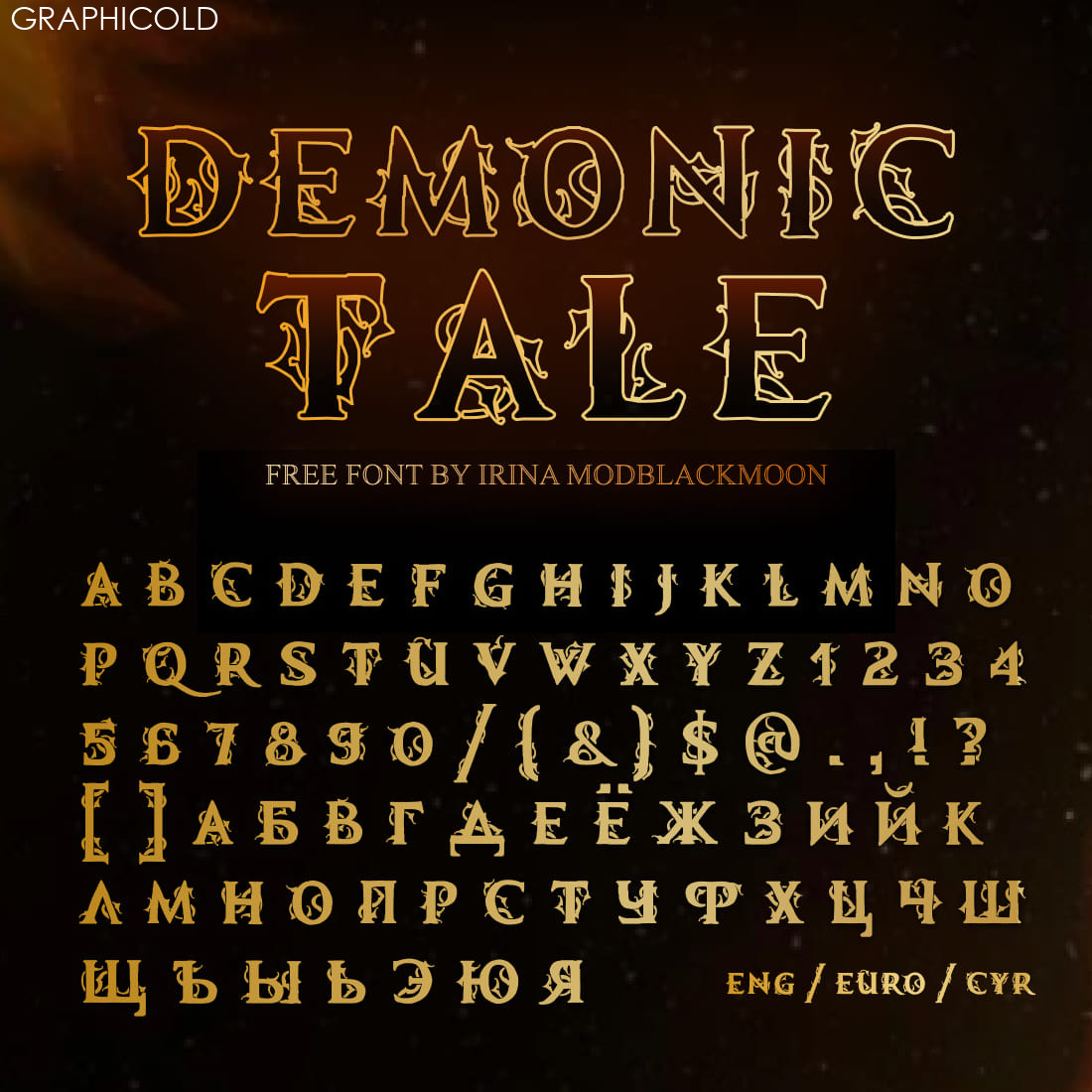
Demon fonts, also known as horror fonts, go beyond the conventional design norms, embracing a macabre aesthetic that is perfect for horror-themed projects, Halloween designs, or anything that requires a touch of the supernatural. These fonts are often characterized by eerie, gothic, or distorted letterforms, which add an unsettling and mysterious vibe to any text.
One prominent example of a demon font is Chiller. Created by Andrew Smith in 1995, Chiller is a widely recognized font that has been utilized in numerous horror movies, posters, and album covers. Its jagged edges, uneven spacing, and blood-like drips give it an unmistakably spooky appearance. Chiller has become synonymous with horror and is a favorite choice for designers looking to evoke fear and suspense in their work.
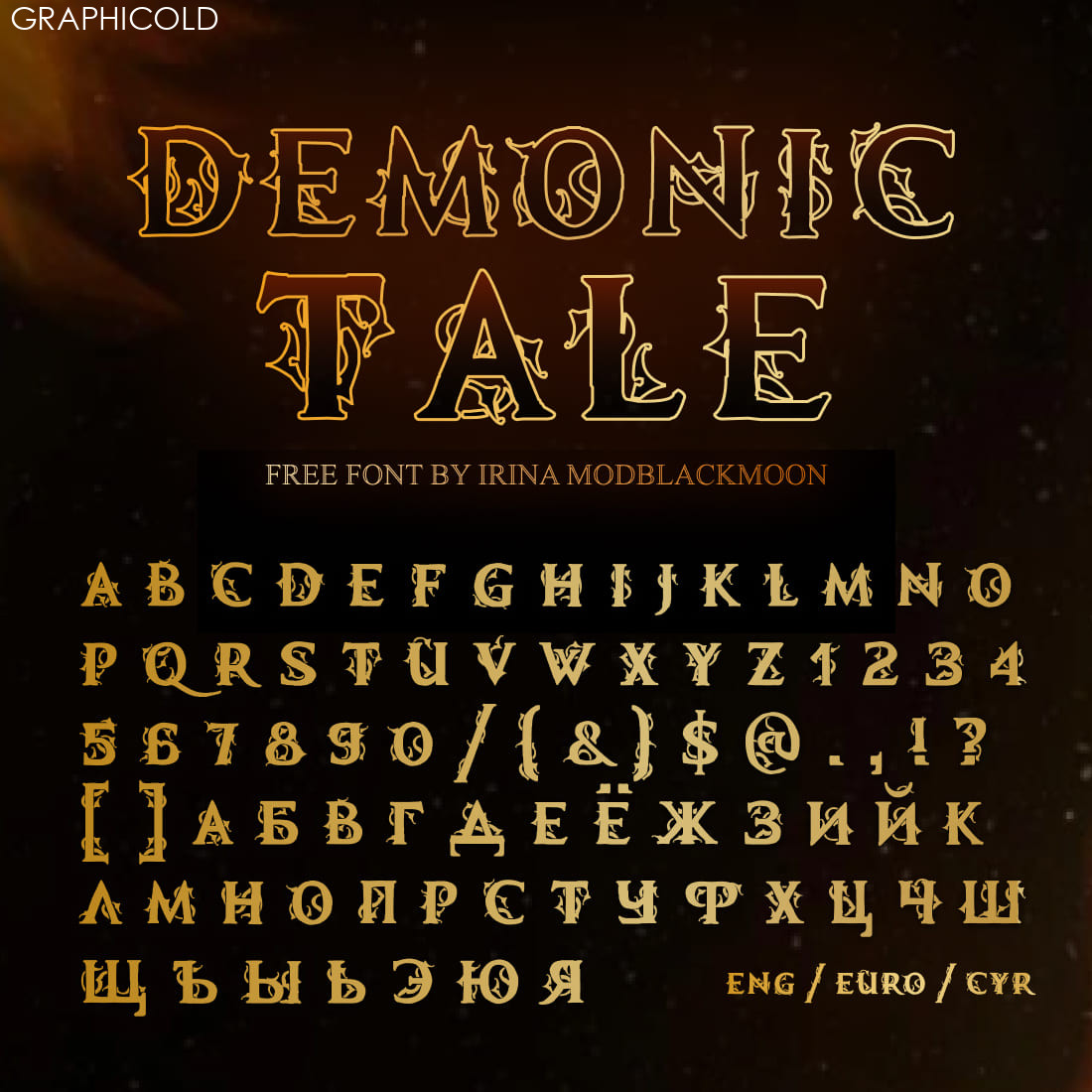
Another popular demon font is Ghoulish. Designed by Sinister Fonts, Ghoulish features sharp, twisted letterforms that resemble claw marks. It is widely used for haunted house advertisements, horror-themed websites, and Halloween party invitations. Ghoulish’s distorted and menacing appearance perfectly captures the essence of darkness and horror.
While demon fonts are primarily associated with the horror genre, they can also be used in other creative ways. Some designers apply them to create a sense of mystery or intrigue in their projects. The unconventional and unsettling nature of demon fonts can effectively catch the viewer’s attention and make the text more memorable.
However, it is important to use demon fonts sparingly and appropriately. Overuse or misuse of these fonts can result in a cluttered and illegible design, ultimately diminishing the intended effect. They are best suited for specific purposes, such as headlines, titles, or specific elements that require a touch of darkness.
In conclusion, demon fonts offer a unique and unconventional approach to typography. Their eerie, distorted, and gothic designs add a touch of darkness and mystery to any text. Whether used for horror-themed projects or to create intrigue in other designs, demon fonts have a distinct visual impact that separates them from traditional fonts. So, if you are looking to unleash the dark side of typography, consider experimenting with demon fonts and let your creativity run free.